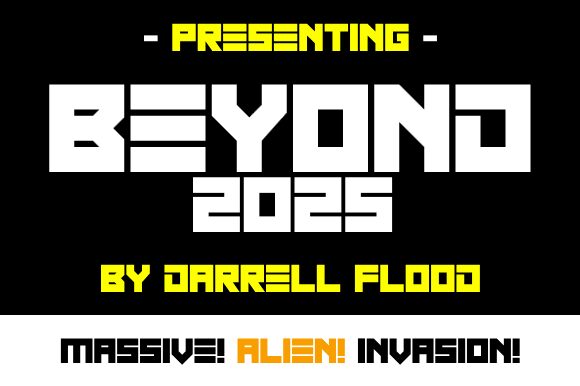
Beyond 2025 Italic
Beyond 2025 Italic font by Hawtpixel focuses on futuristic aesthetics with bold, geometric letterforms. The techno display typeface uses straight lines and sharp angles to create distinctive-looking aggressive characters. All characters feature angular terminals, medium contrast, and wide proportions.
Use Beyond 2025 for websites in technology fields and coding apps. Ideal creative applications also include computer games, visuals for the music industry, poster design, branding and packaging projects at larger sizes.